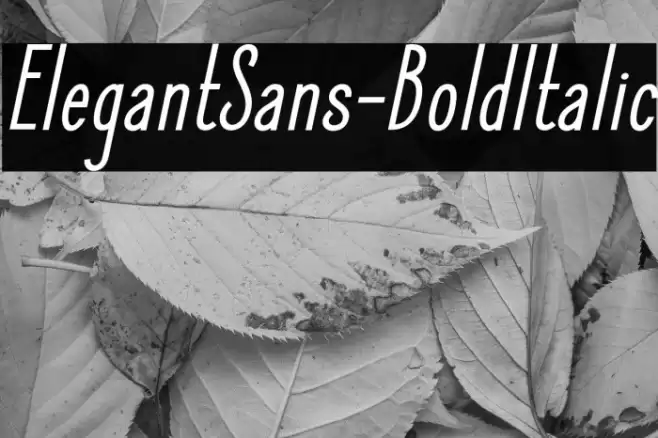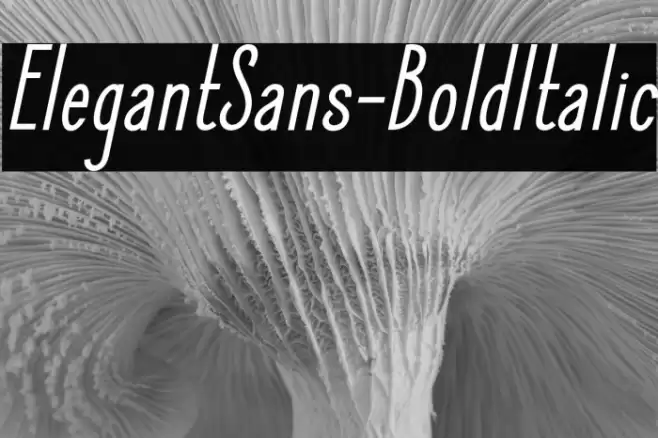
ElegantSans-BoldItalic Font
ElegantSans-BoldItalic Description
This font exhibits a sleek and modern sans-serif style with a bold and italicized appearance. The characters are elongated with a slight slant, giving them a dynamic and forward-moving feel. The strokes are consistent in thickness, providing a uniform and clean look. The uppercase and lowercase letters maintain a harmonious balance, while the numerals and special characters integrate seamlessly with the overall design. This font's aesthetic is both contemporary and versatile, making it suitable for a variety of design applications.
A sleek, modern sans-serif font with bold, italicized characters from Uncategorized fonts.
- Proposed Projects: Ideal for branding, advertising, and editorial design projects that require a modern and dynamic touch.
- Use Case: Headlines, Logos, Advertising